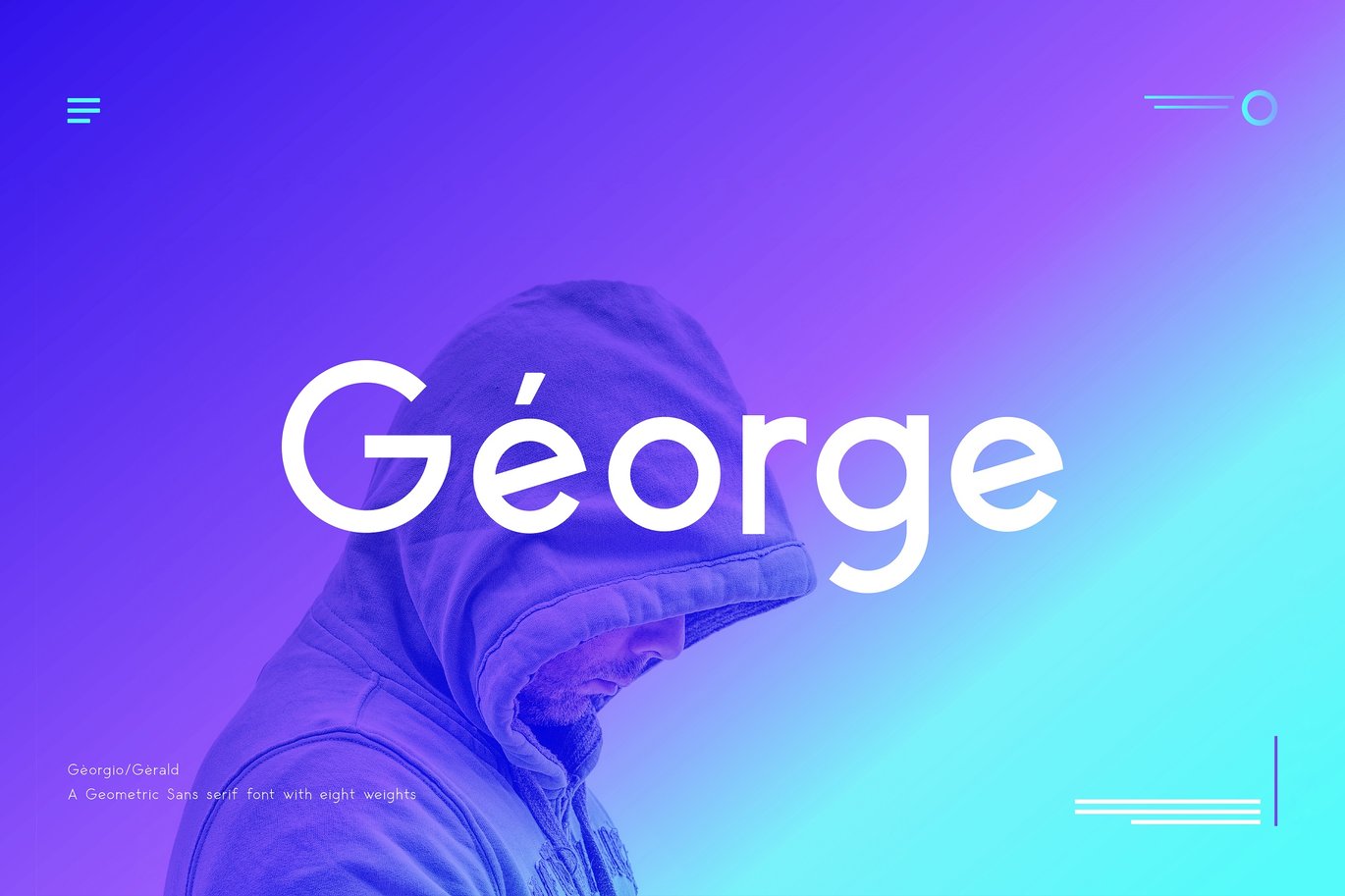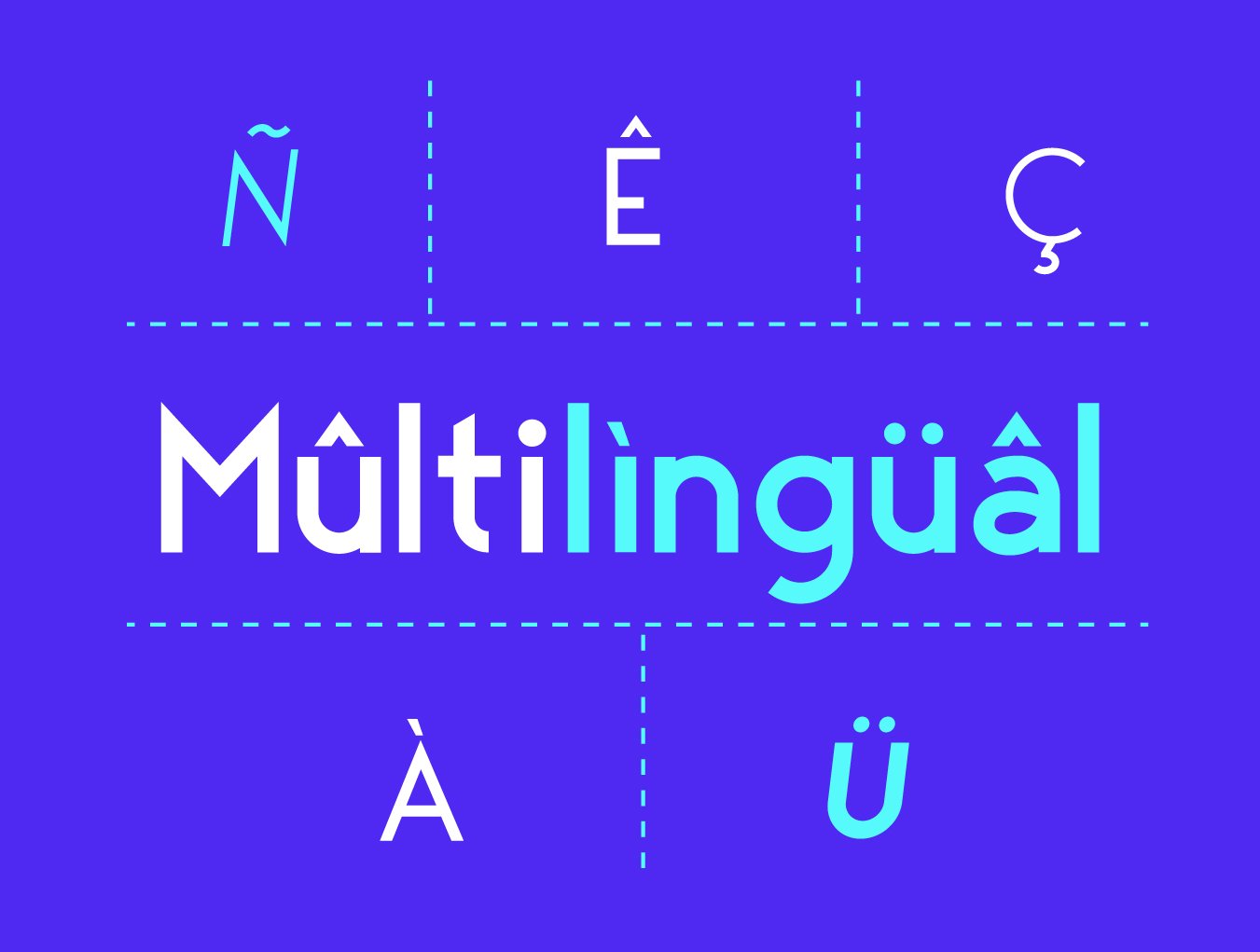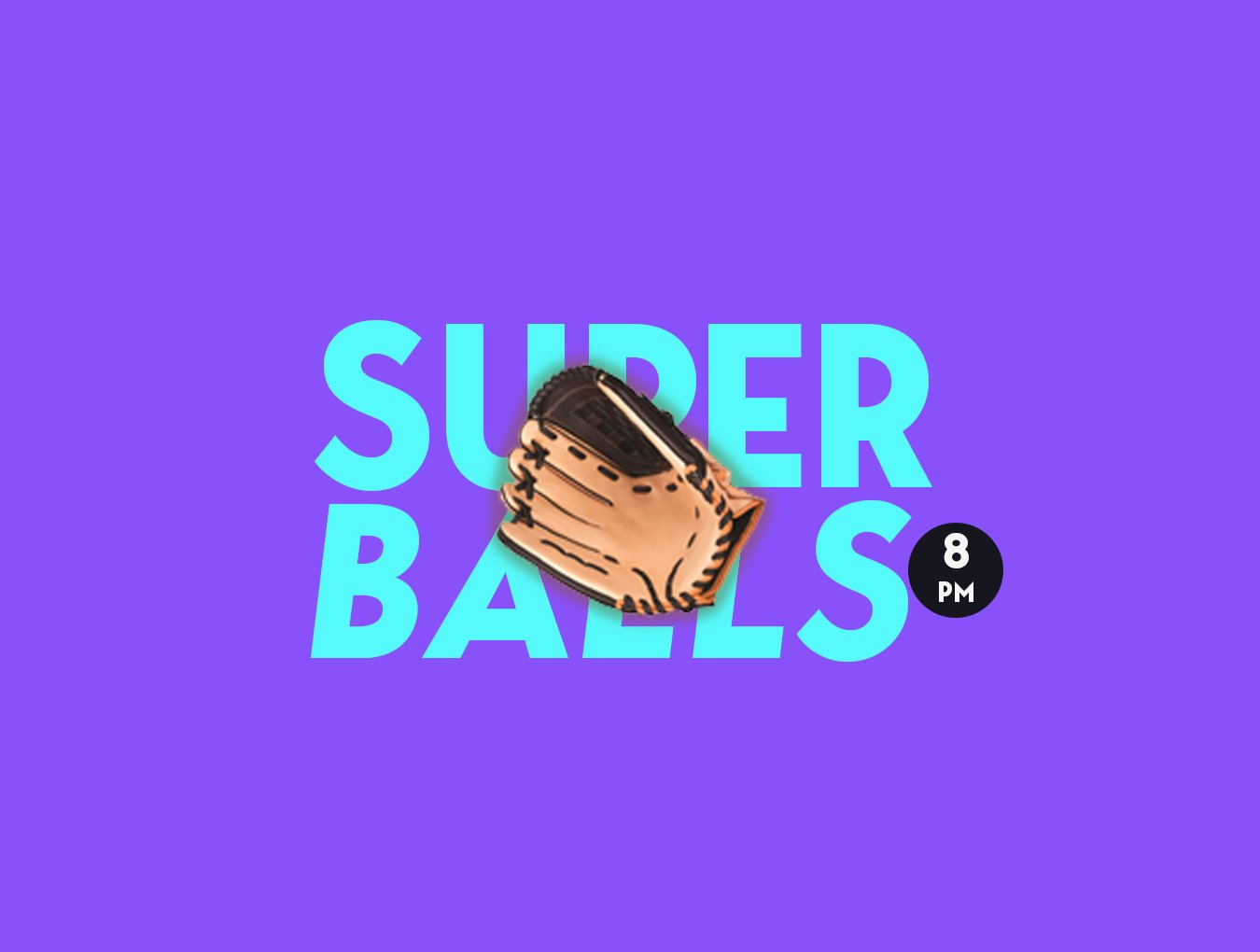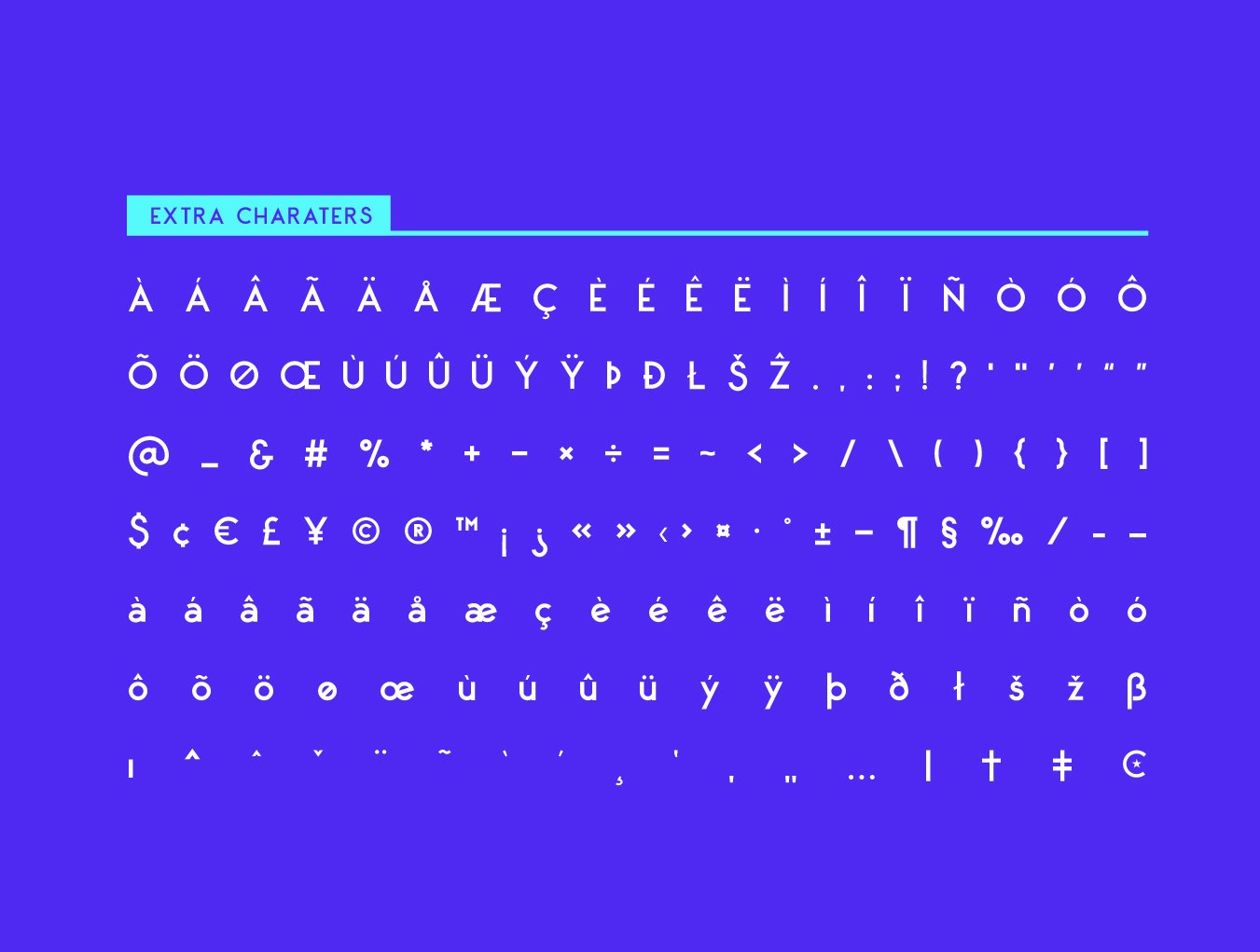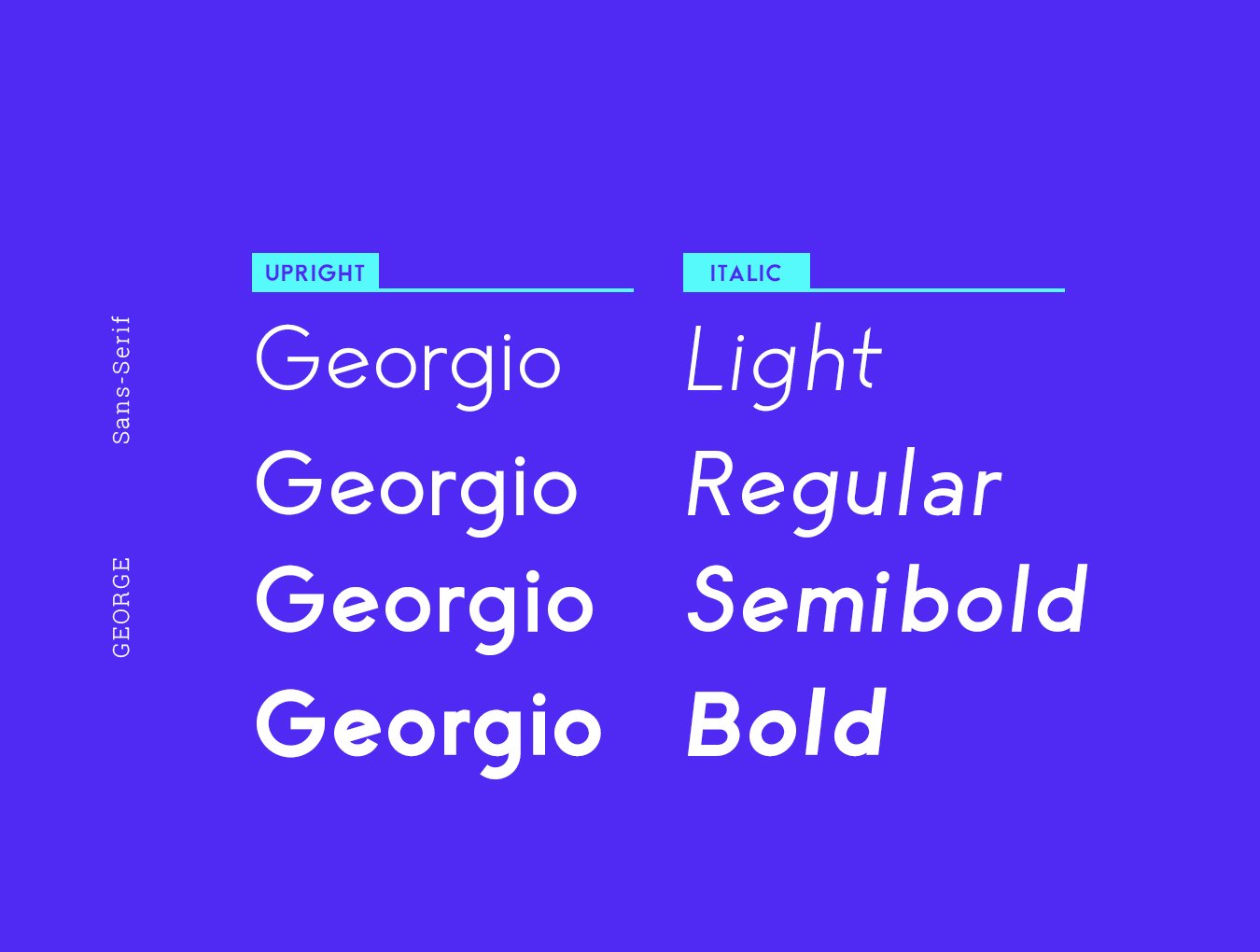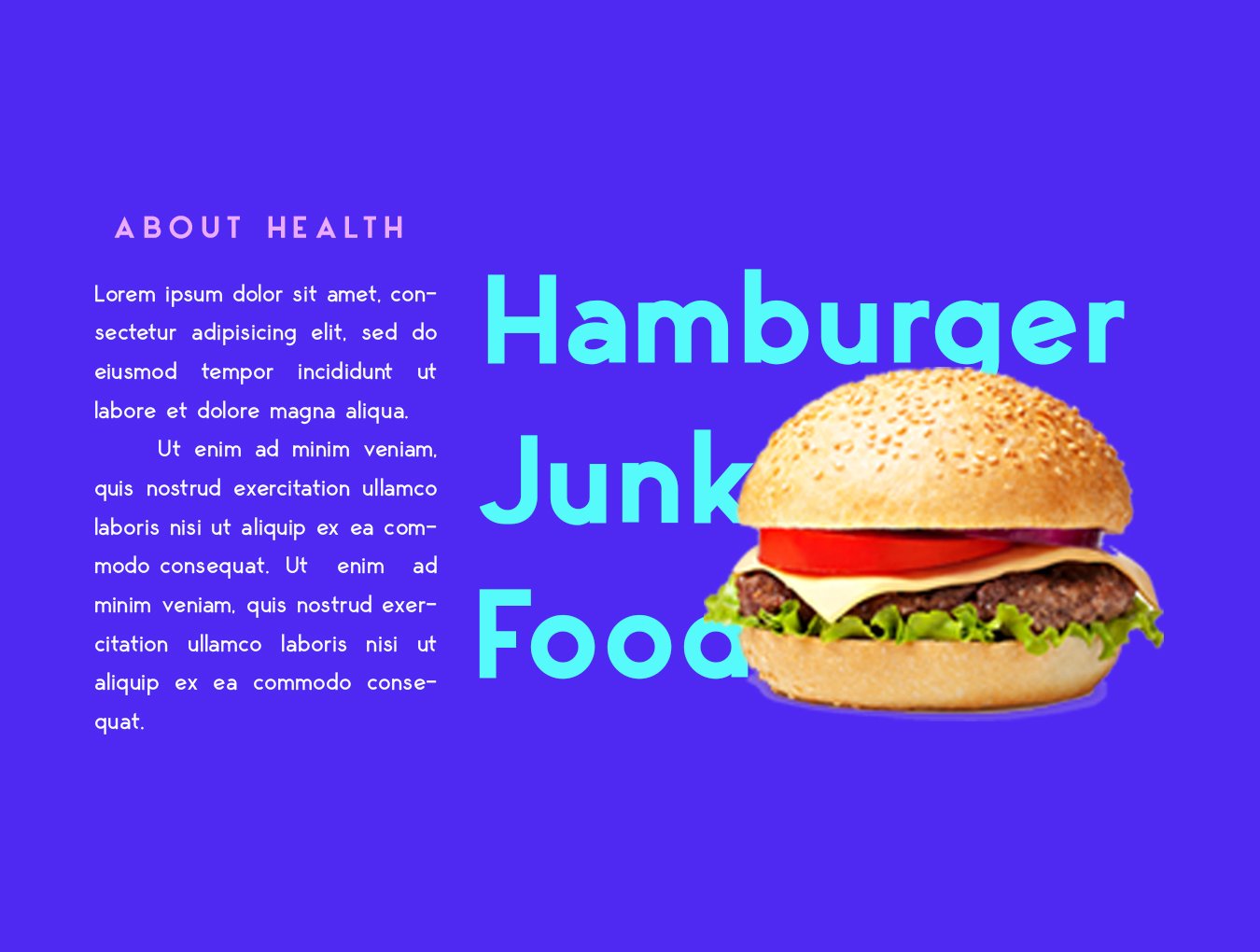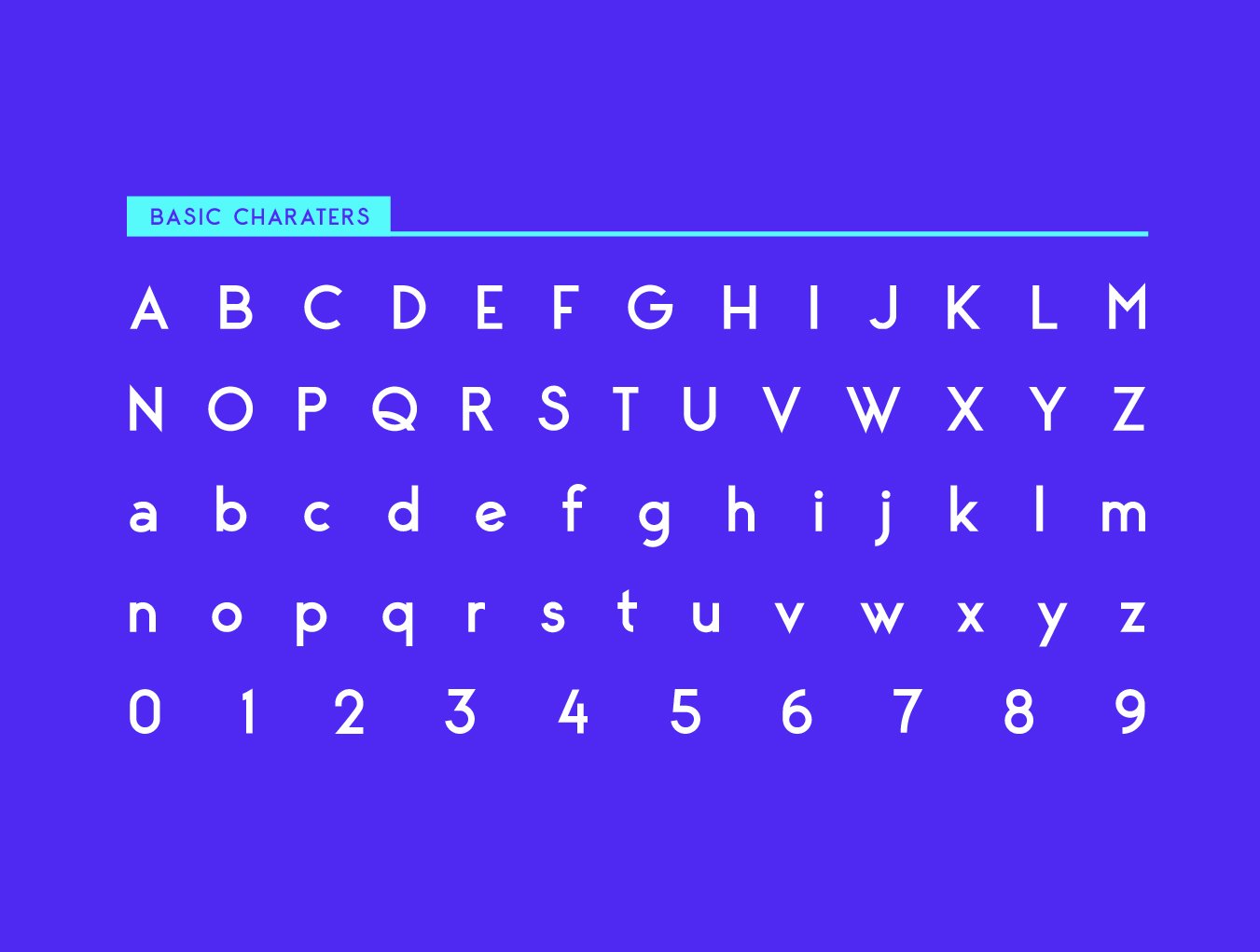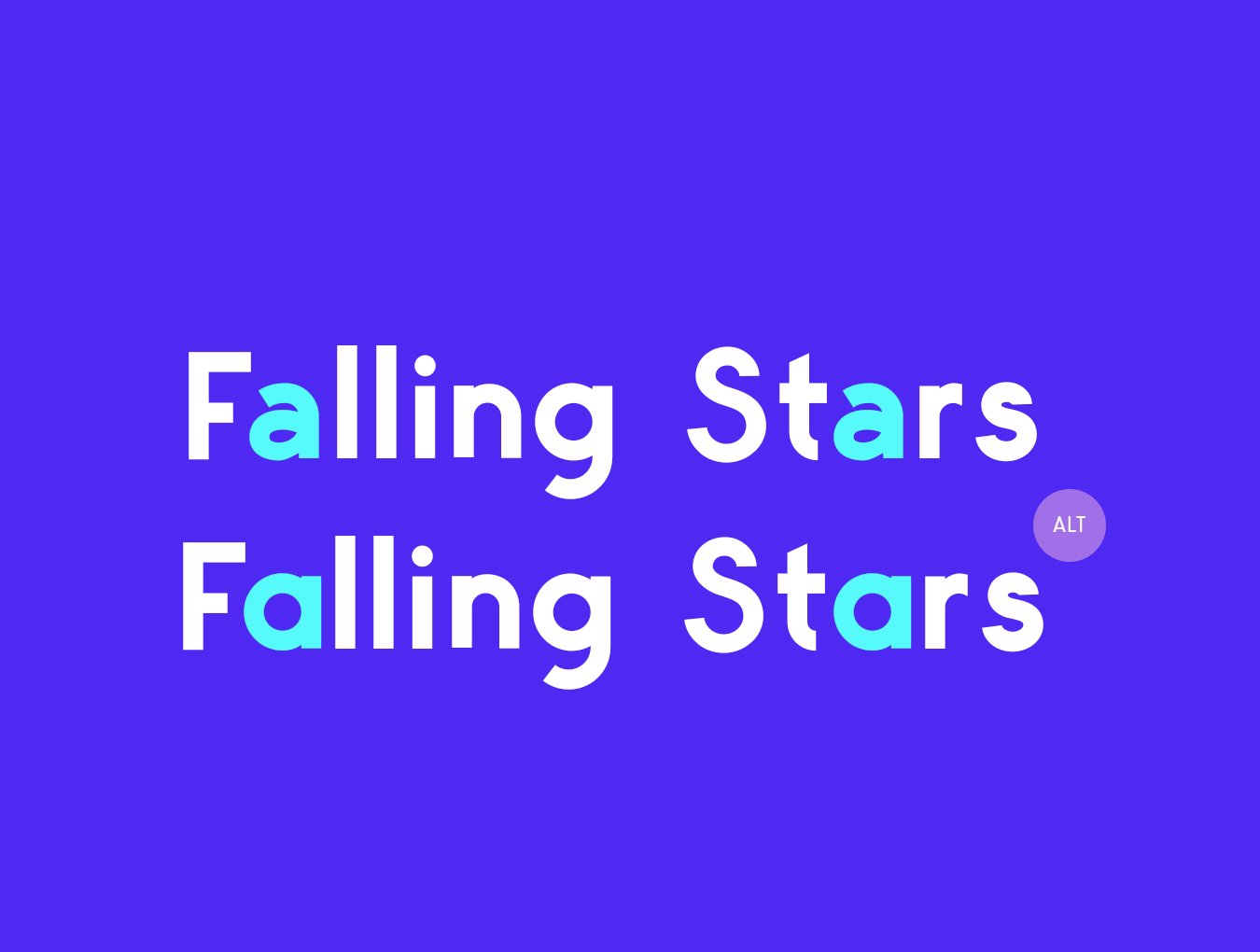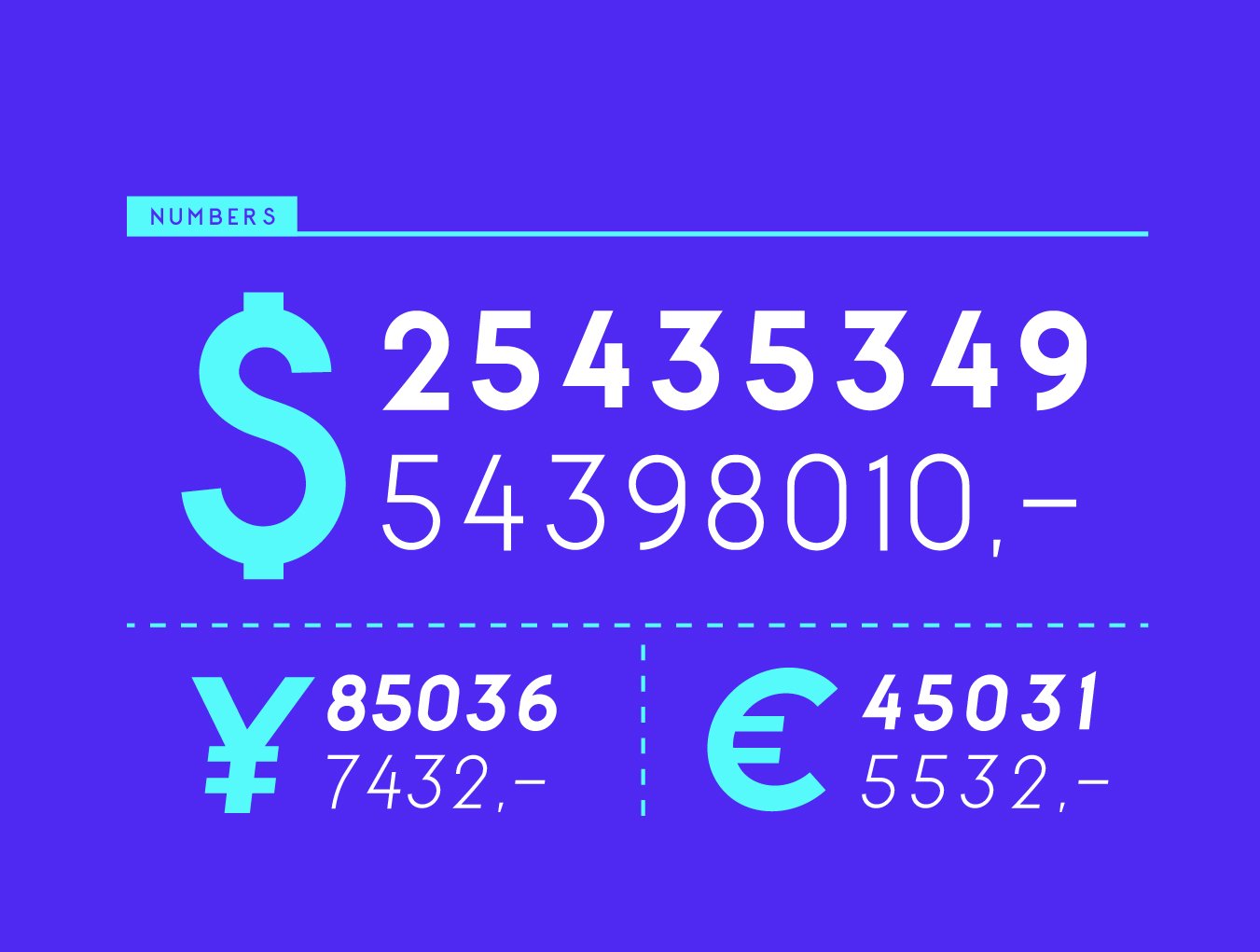
George Sans Geometric Typeface
George Sans v1.5 is an Elegant contemporary sans serif font family of 8 fonts. Designed with clean and stylized modern European geometry with harmonious appearance for both texts and headlines. George Sans is perfect companion for branding, editorial and signage, also works great for bigger applications.
- Capital + Lowercase letters
- Numbers + Punctuation
- 8 weights [ Light, Light Italic, Regular, Italic, Semi Bold, Semi Bold Italic, Bold, Bold Italic]
- Multiple Language supported